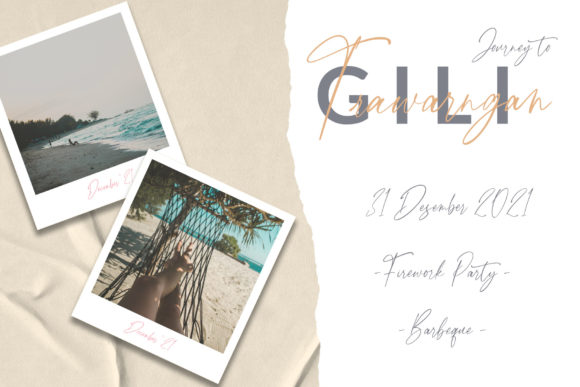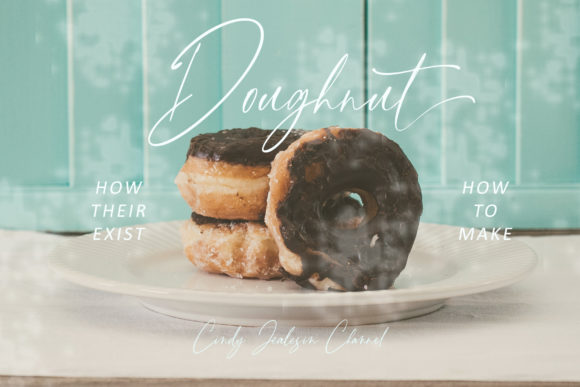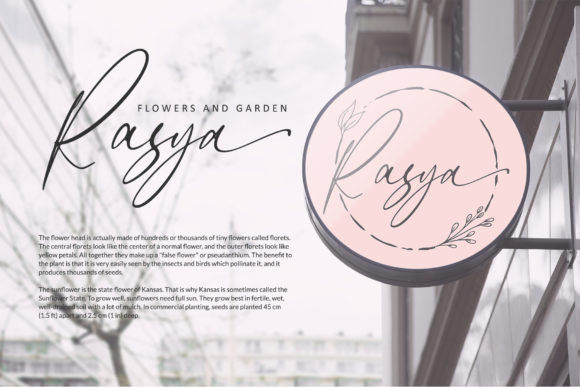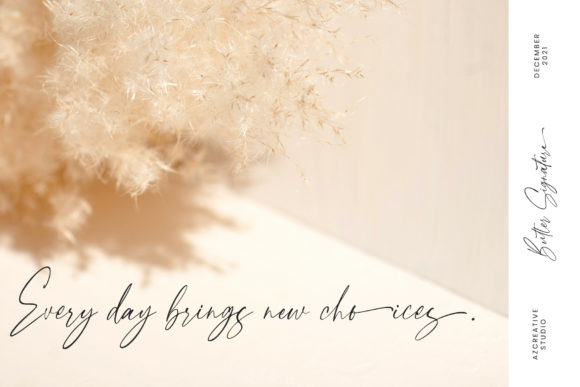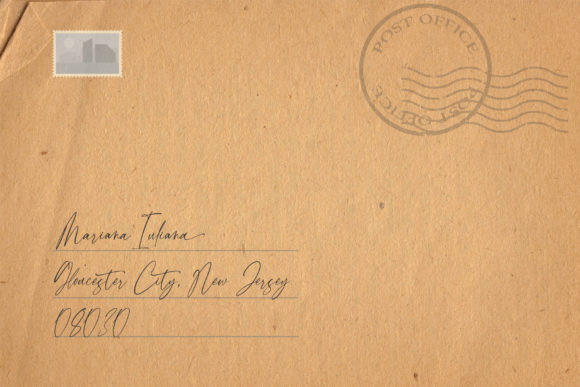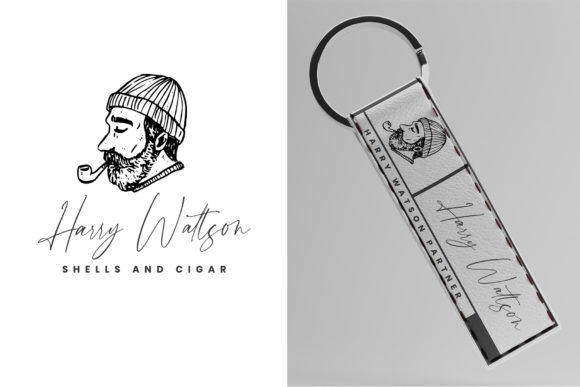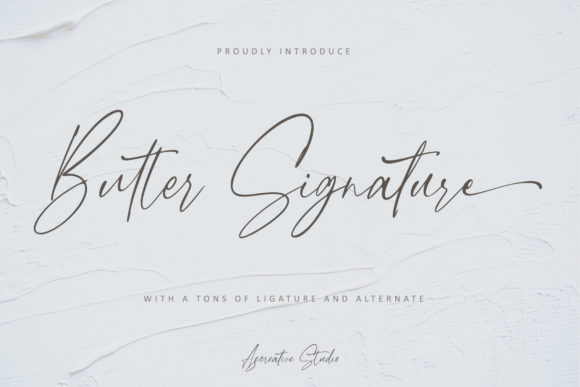
The Butter Signature Font: A Game-Changer for Your Designs
Have you ever been in the middle of a design project, and suddenly, you just can’t seem to find the right font? I know I have. It was a few months ago when I was working on a wedding invitation design for a client. The theme was elegant, yet playful, and I was determined to find a font that would match that vibe. That’s when I stumbled upon the Butter Signature font. It was love at first sight! 💕
The natural, handwritten style of Butter Signature immediately caught my attention. Its unique and interesting flair makes it perfect for a wide range of designs, from invitation letters and magazines to posters, accessories, articles, books, and many more. In this article, I’ll share my experience with the Butter Signature font, its features, and how to make the most of it in your designs.
An Honest Review of Butter Signature
• Natural and elegant look: The font’s handwritten style gives it a warm and personal touch that’s perfect for designs that require a human feel.
• Highly versatile: Butter Signature can be used for a wide range of designs, from formal invitations to playful posters.
• 💡 Instant recognition: The font’s unique style makes it easily recognizable, adding a touch of personality to your designs.
While I absolutely love the Butter Signature font, there are a few things to keep in mind:
• ⚠️ Legibility at small sizes: Like many handwritten fonts, Butter Signature can be a bit tricky to read at very small sizes. Make sure to test it at different sizes to ensure it’s legible for your specific design.
• 🤔 Limited use in body text: While the font is beautiful, it’s best used in headlines, titles, or short paragraphs. For longer body text, you may want to pair it with a more traditional font.
One of the best things about the Butter Signature font is its OpenType features and glyphs. These features allow you to customize the font to fit your design needs. Here are a few tips on how to access and use these features:
The Story Behind Butter Signature
The Butter Signature font was designed by a team of talented typographers who wanted to create a font that would add a touch of elegance and personality to designs. The font’s natural, handwritten style is inspired by the imperfections and uniqueness of human handwriting.
Font Name Butter Signature Font
Author Azcreative Studio
Q: What type of designs is Butter Signature best suited for?
A: Butter Signature is perfect for designs that require a natural, elegant look, such as invitations, magazines, posters, and accessories.
Q: Is Butter Signature a difficult font to read?
A: Like many handwritten fonts, Butter Signature can be a bit tricky to read at very small sizes. However, it’s generally easy to read and understand.
Q: Can I use Butter Signature with other fonts?
A: Yes, Butter Signature can be paired with a wide range of fonts to create a unique and interesting design. Experiment with different font combinations to find the perfect look for your project.